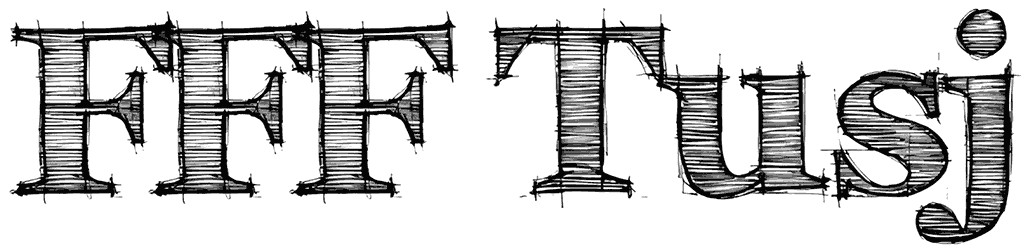
FFF Tusj Font
Sometimes you can change a formal serif font by adding a bit of variety and turn it into a magical sketch font that leads to a sense of jauntiness, whimsical, grunge, or innovation.
Handwritten version of Georgia. Works best in very large font size.
Designed by: Magnus Cederholm